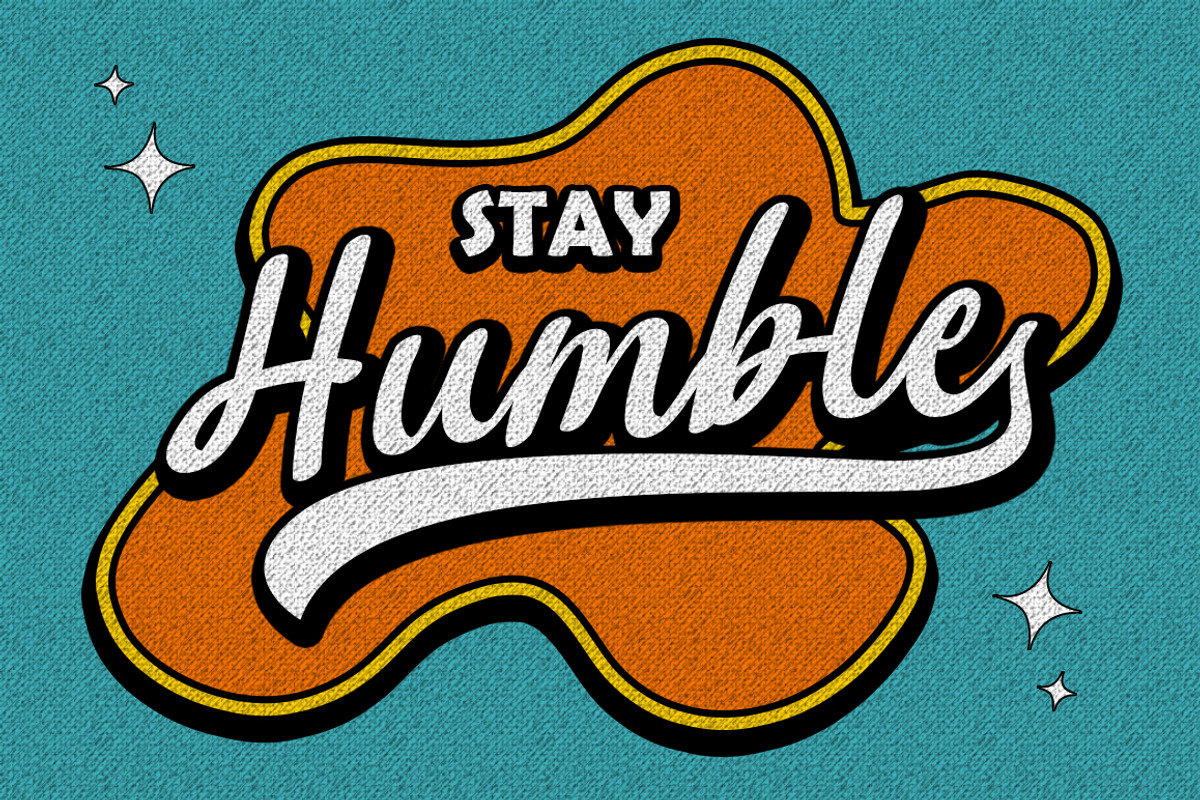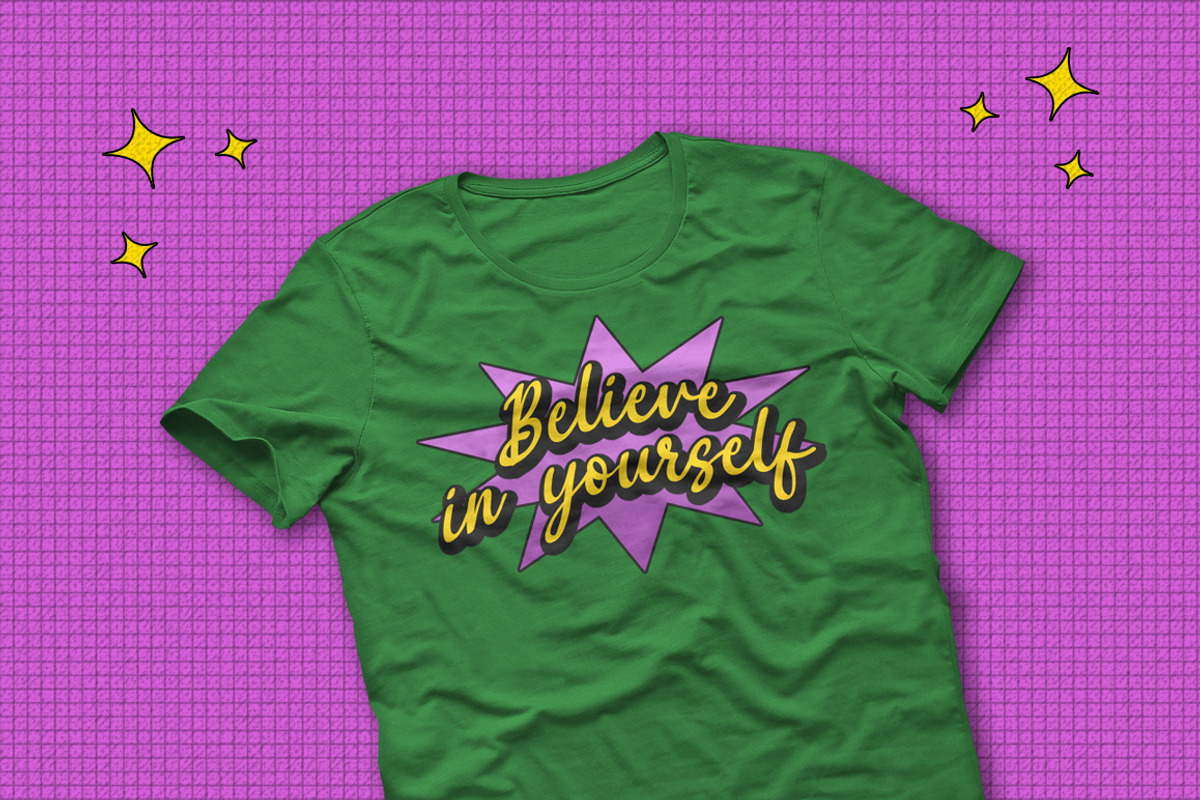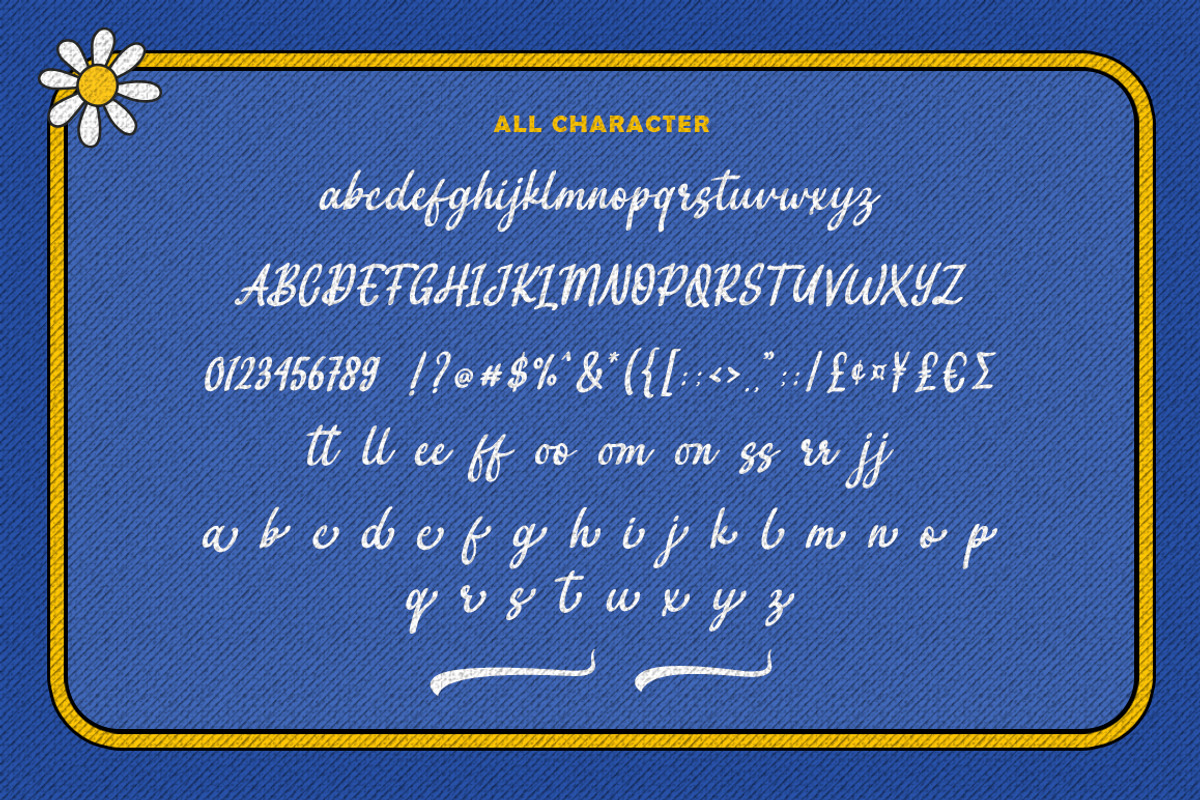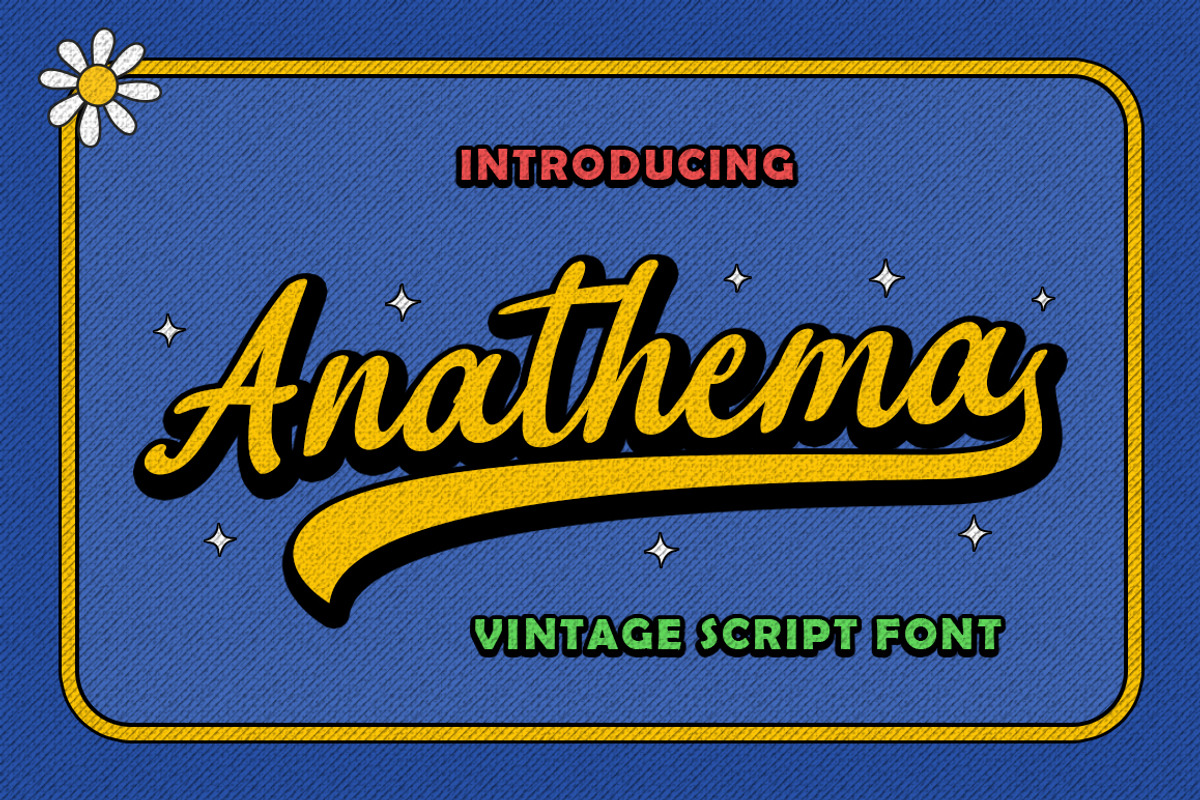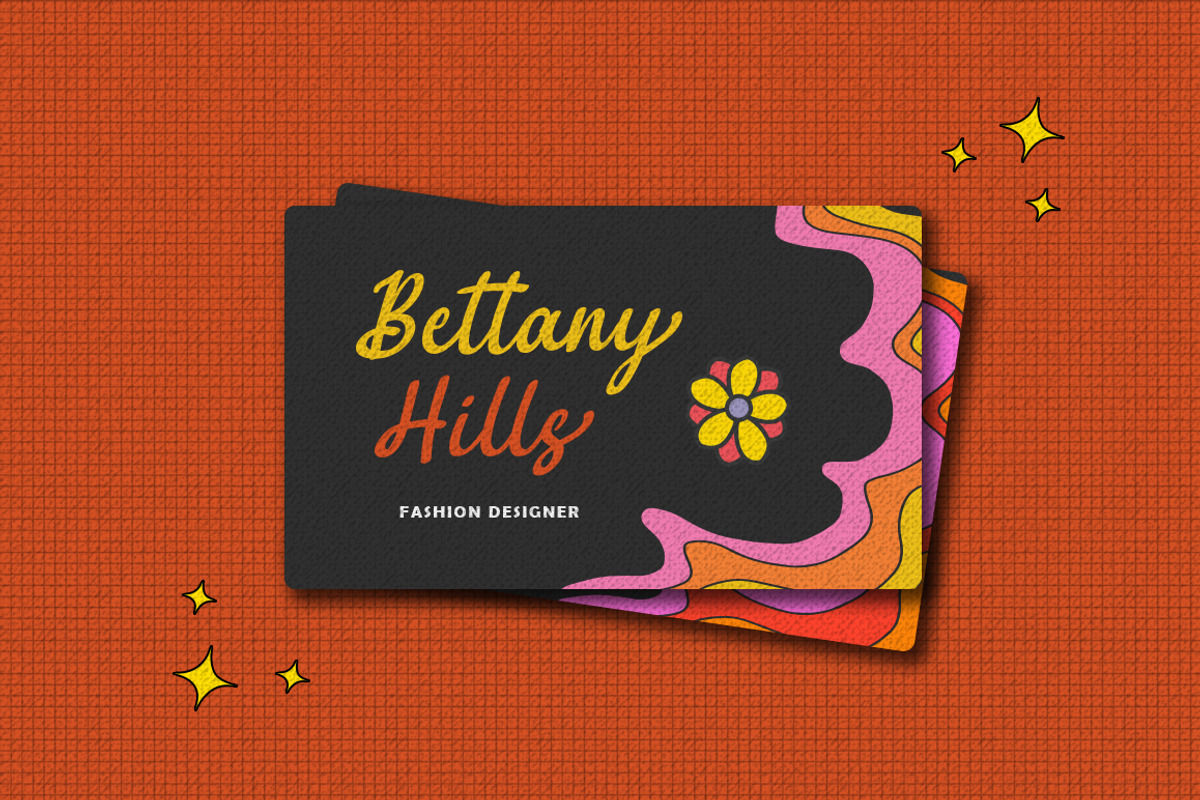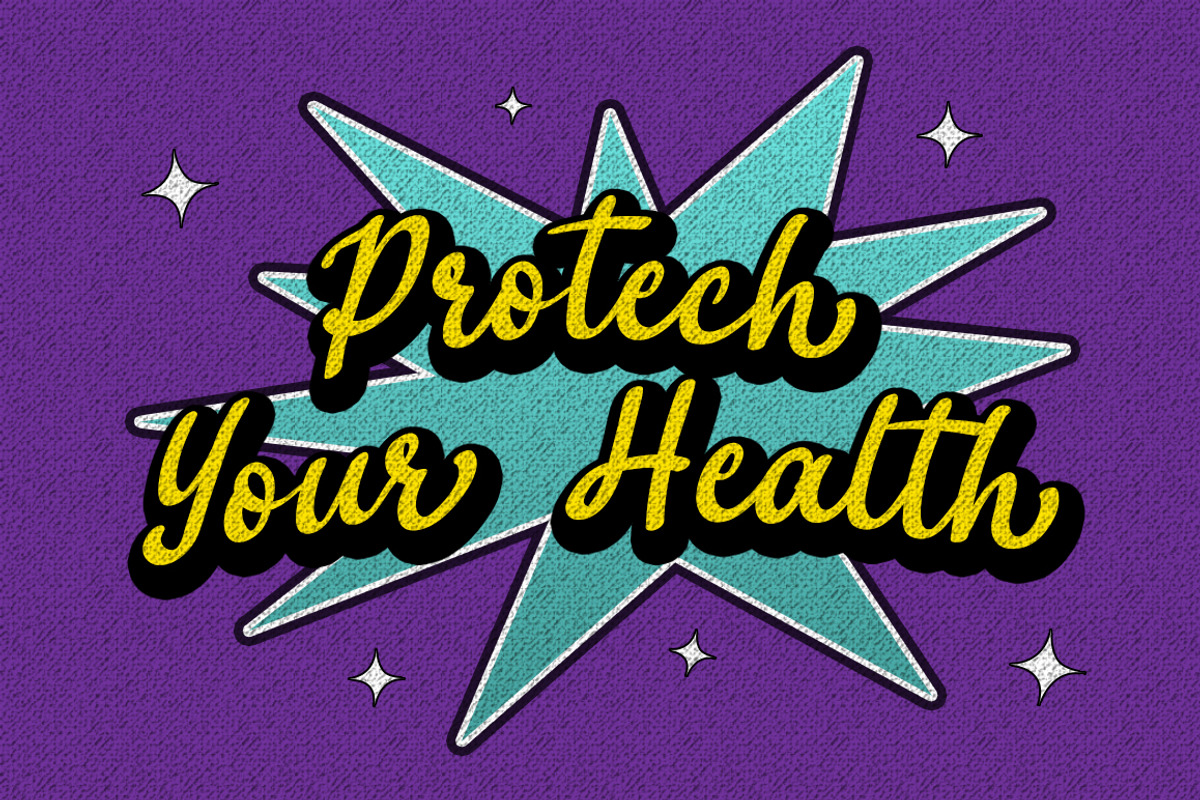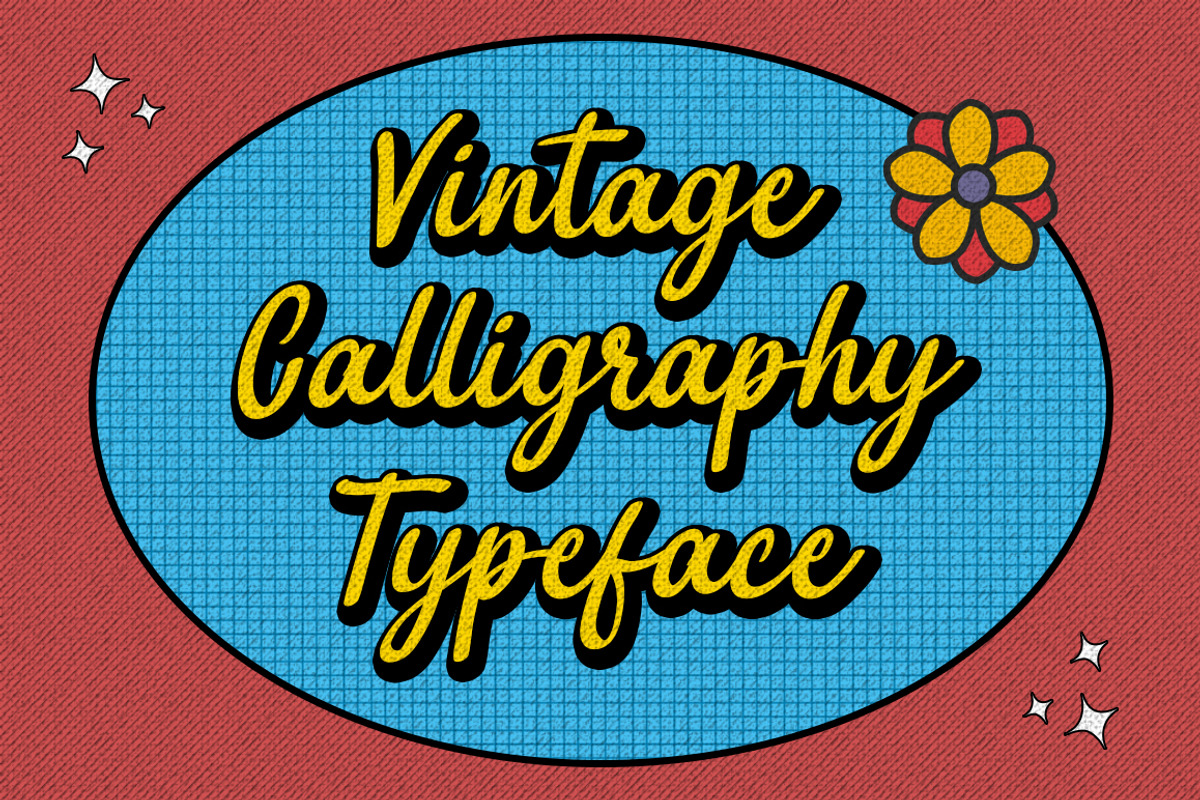
Anathema - Vintage Script Font
Introducing Anathema - Vintage Script Font
Anathema is a retro themed script font created using beautiful hand strokes. quickly create awesome designs with this font!
Very suitable for branding, quotes, logotype, headline, tittle, and the other various formal forms such as invitations, emblems, logos, magazines, books, packaging, clothing, t-shirt, and labels.
- Stylistic Set, Ligature, And Swash
- Number & Punctuation
- Support Multilingual Languange